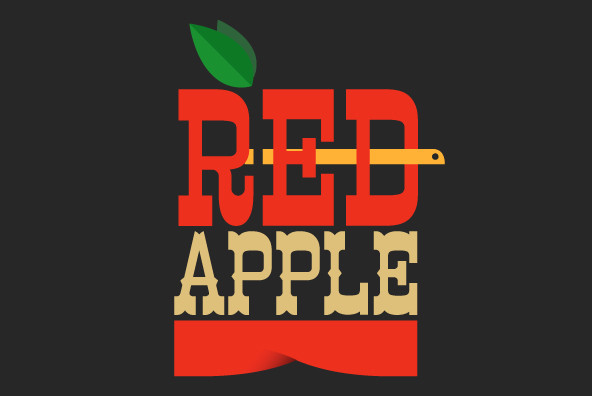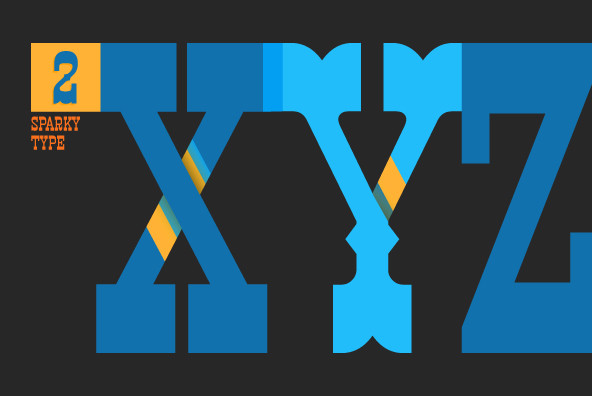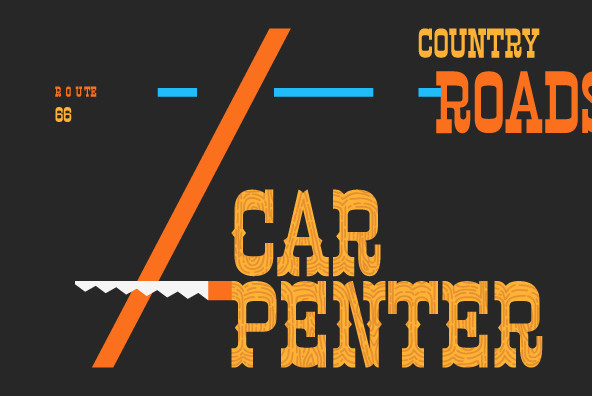
Nisswa was inspired by the over abundance of cowboy-style signage in Northern Minnesota. These two styles are interchangeable for an authentic hand-picked effect. From graffiti to selling cowboy hats, Nisswa gets the job done right.